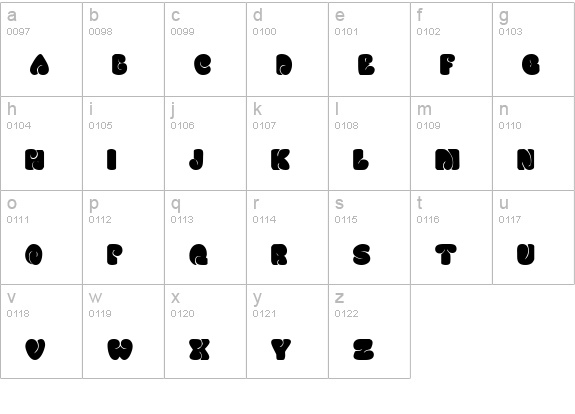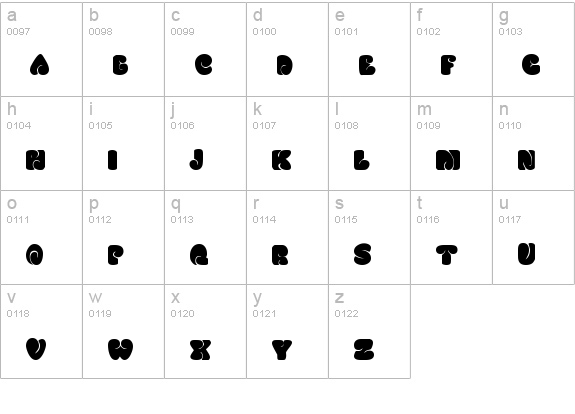
SixtiesVibe Font Details
Introducing SixtiesVibe, a font that embodies the essence of the iconic 1960s era. This groovy and retro-inspired typeface captures the spirit of the swinging sixties with its bold and playful design. With its captivating curves and whimsical letterforms, SixtiesVibe transports you back to a time of peace, love, and creative expression. This font is more than just a nostalgic tribute; it's a versatile tool that can elevate any design project. Whether you're creating vintage-inspired posters, retro album covers, or even modern branding with a retro twist, SixtiesVibe brings a unique and vibrant energy to your work. But the best part? SixtiesVibe is completely free! Yes, you read that right. This incredible font is freely available to download at FontsMarket.com, making it accessible to all designers, artists, and enthusiasts who want to infuse their creations with a touch of sixties nostalgia. Don't miss out on the opportunity to add a dash of retro charm to your designs. Download SixtiesVibe for free today and let the magic of the sixties inspire your creativity!